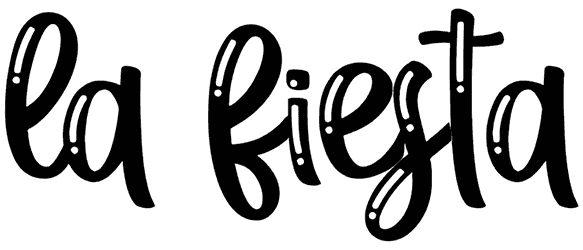
La Fiesta Font
When you’re in the mood to produce an attention-grabbing food package, book cover, or music title, La Fiesta, like other brush fonts, could be a fantastic alternative, despite the fact that it is a bit unreadable. Lively and entertaining, this fancy font will give your work an edge.
Designed by: HansCo